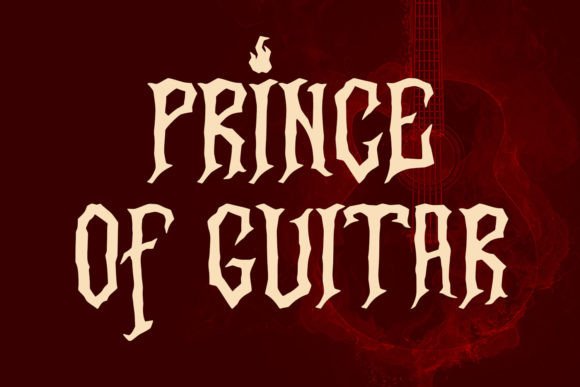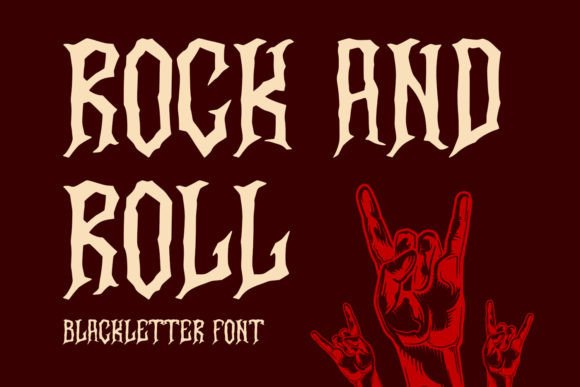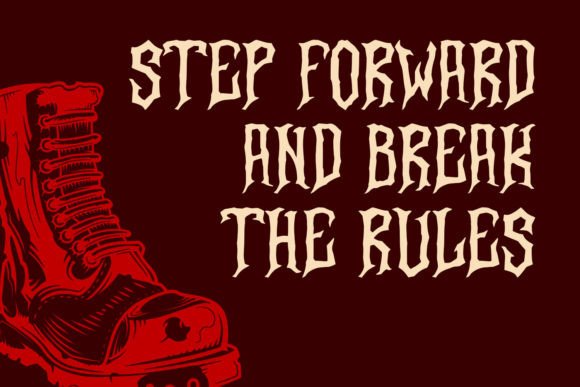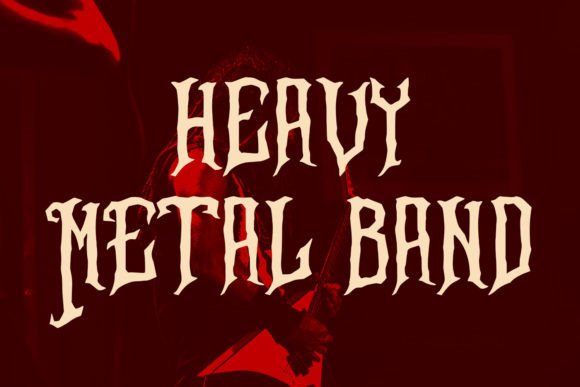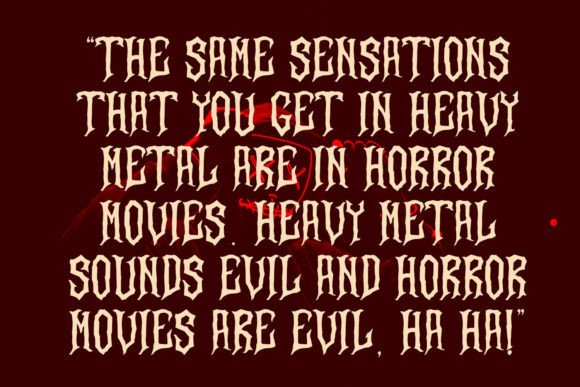
Astriam Font: Elevate Your Designs with a Bold and Thick Lettered Blackletter Font
Are you looking for a font that can add a touch of elegance and sophistication to your designs? Look no further than the Astriam Font. This bold and thick lettered blackletter font is perfect for designers and crafters who want to make a statement with their work. In this article, we’ll take a closer look at the features and benefits of the Astriam Font and how it can elevate your designs to the next level.
What is Astriam Font?
Astriam Font is a bold and thick lettered blackletter font that is designed to make a statement. Its unique and elegant design makes it perfect for a variety of design projects, from logos and branding to packaging and advertising. The font is PUA encoded, which means you can access all of the glyphs and swashes with ease, giving you maximum flexibility and creative control.
Key Features of Astriam Font
- Bold and Thick Lettered Design: The Astriam Font features a bold and thick lettered design that is sure to grab attention.
- Blackletter Style: The font has a classic blackletter style that adds a touch of elegance and sophistication to any design.
- PUA Encoded: The font is PUA encoded, making it easy to access all of the glyphs and swashes.
- Highly Versatile: The Astriam Font is highly versatile and can be used for a variety of design projects, from logos and branding to packaging and advertising.
Benefits of Using Astriam Font
There are many benefits to using the Astriam Font in your designs. Here are just a few:
- Adds Elegance and Sophistication: The Astriam Font adds a touch of elegance and sophistication to any design, making it perfect for high-end brands and luxury products.
- Grabs Attention: The bold and thick lettered design of the Astriam Font is sure to grab attention and make your designs stand out.
- Highly Readable: Despite its bold design, the Astriam Font is highly readable, making it perfect for body text and headlines.
How to Use Astriam Font in Your Designs
Using the Astriam Font in your designs is easy. Here are just a few tips to get you started:
- Use it as a Headline Font: The Astriam Font is perfect for headlines and titles, where its bold design can really make an impact.
- Pair it with Other Fonts: The Astriam Font can be paired with other fonts to create a unique and interesting design.
- Experiment with Different Colors: The Astriam Font looks great in a variety of colors, so don’t be afraid to experiment and find the perfect color for your design.
Who Can Benefit from Using Astriam Font?
The Astriam Font is perfect for a variety of designers and crafters, including:
- Graphic Designers: Graphic designers can use the Astriam Font to create stunning logos, branding, and advertising materials.
- Crafters: Crafters can use the Astriam Font to create beautiful handmade cards, scrapbooking pages, and other paper crafts.
- Web Designers: Web designers can use the Astriam Font to create bold and eye-catching headlines and titles for their websites.
In conclusion, the Astriam Font is a bold and thick lettered blackletter font that is perfect for designers and crafters who want to add a touch of elegance and sophistication to their designs. Its unique and elegant design, PUA encoding, and high versatility make it a great addition to any design project. Whether you’re a graphic designer, crafter, or web designer, the Astriam Font is sure to become a favorite in your font collection.